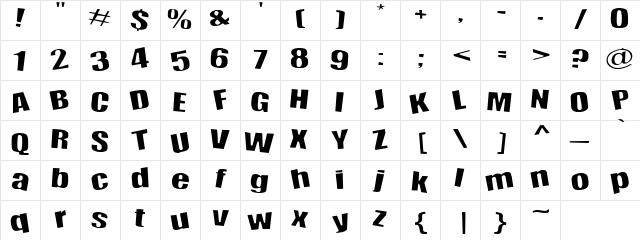
Euro Blow Regular
Design Context for Euro Blow Typeface
Euro Blow offers clean, dependable letterforms without strong stylistic allegiance, making it a practical choice for designers who need flexibility.